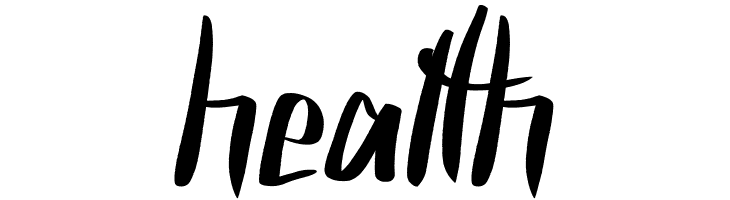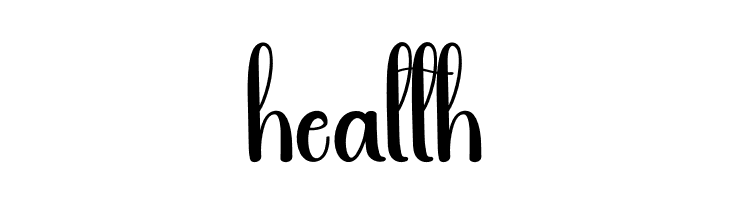
A bold, gothic blackletter font with sharp, angular lines and high contrast.
A bold, dynamic brush script font with high contrast and expressive strokes.
An elegant, decorative script font with intricate loops and swirls.
A bold, vintage-inspired font with sharp serifs and high contrast, perfect for striking headlines.
A bold, expressive handwritten font with dynamic strokes and unique character forms.
A bold, brush-style font with dynamic and expressive characters.
A playful, handwritten font with tall, narrow characters and whimsical loops.
A whimsical, hand-drawn font with an eerie, jagged style.
A bold, playful font with a whimsical, hand-drawn style.
A decorative font with a mechanical, handcrafted appearance.